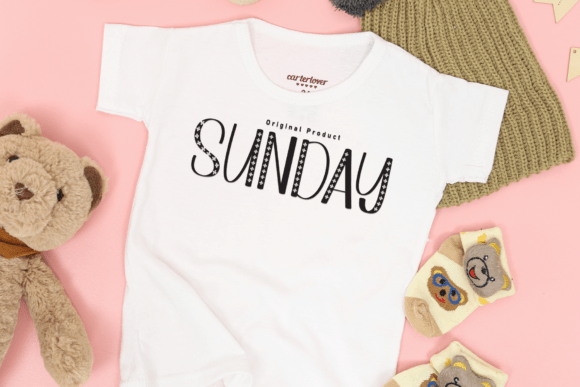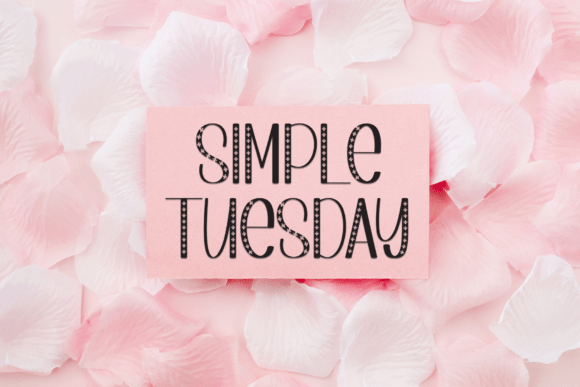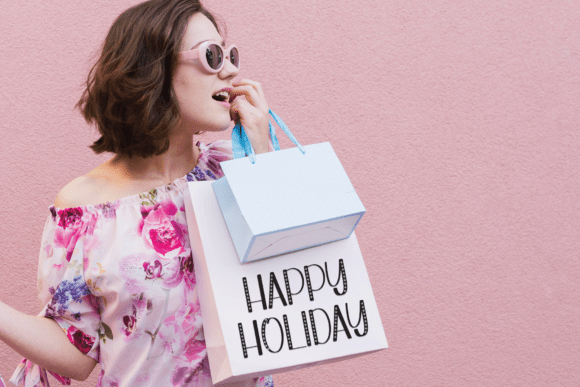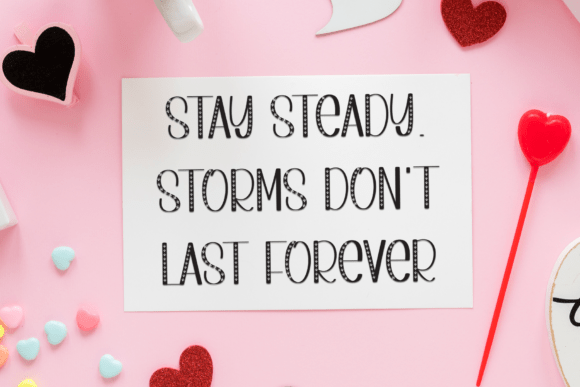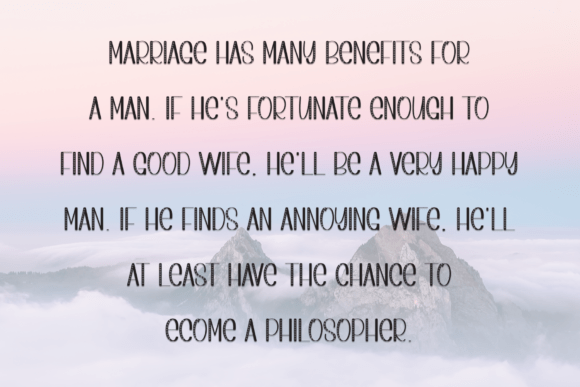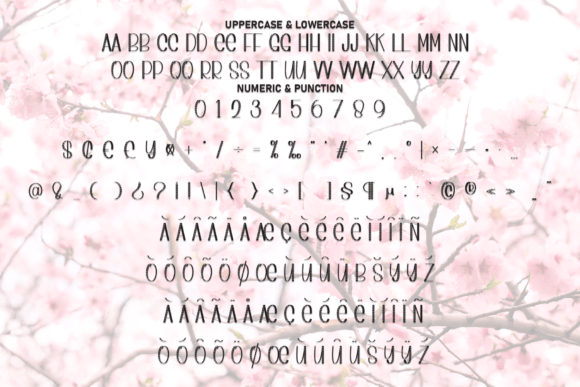
Introducing the Cherry Blossom Font: A Handcrafted Typographic Marvel
Are you looking for a font that can add a touch of whimsy and charm to your designs? Look no further than the Cherry Blossom Font, a handcrafted typographic marvel that is sure to infuse your projects with an effervescent joy. With its lively allure and hospitable warmth, this enchanting font is perfect for crafting charming wedding invites, captivating greeting cards, or any project that demands a dash of sweetness.
The Cherry Blossom Font is purpose-built for designers and crafters who yearn to subtly stand out with their designs. Whether you’re creating wedding invitations, greeting cards, or other paper crafts, this font is sure to add a touch of magic to your projects. With its unique blend of playfulness and elegance, the Cherry Blossom Font is the perfect choice for anyone looking to create designs that are both visually stunning and emotionally resonant.
A Font that Radiates Warmth and Interaction
One of the standout features of the Cherry Blossom Font is its ability to radiate warmth and interaction. With its delicate lines and whimsical flourishes, this font is sure to bring a sense of joy and playfulness to your designs. Whether you’re creating a wedding invitation or a greeting card, the Cherry Blossom Font is sure to make your project feel more personal and inviting.
The Cherry Blossom Font is versatile and can be used for a variety of projects, including:
- Wedding invitations and announcements
- Paper crafts and scrapbooking
- Signs and posters
- Digital art and illustrations
Why Choose the Cherry Blossom Font?
So why choose the Cherry Blossom Font for your next project? Here are just a few reasons:
- Unique and eye-catching: The Cherry Blossom Font is a one-of-a-kind font that is sure to grab attention and make your designs stand out.
- Playful and elegant: This font combines playfulness and elegance, making it perfect for a wide range of projects.
- High-quality: This font is handcrafted with love and care, ensuring that it is of the highest quality.
Tips for Using the Cherry Blossom Font
Here are a few tips for using the Cherry Blossom Font in your designs:
- Pair with complementary fonts: The Cherry Blossom Font pairs well with a variety of fonts, including serif and sans-serif fonts.
- Use for headlines and titles: This font is perfect for headlines and titles, where you want to make a bold statement.
- Add embellishments: Consider adding embellishments, such as flowers or leaves, to give your designs an extra touch of whimsy.
In conclusion, the Cherry Blossom Font is a handcrafted typographic marvel that is sure to infuse your designs with an effervescent joy. With its lively allure and hospitable warmth, this enchanting font is perfect for crafting charming wedding invites, captivating greeting cards, or any project that demands a dash of whimsical flair. Whether you’re a designer or crafter, the Cherry Blossom Font is sure to become a favorite in your collection.